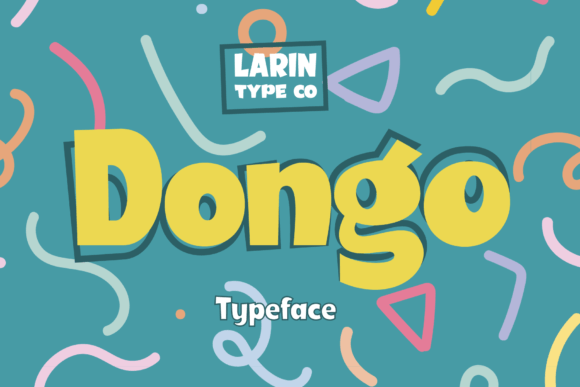
Dive into the world of Dongo, a captivating display font that radiates fun and lightheartedness! Embark on a journey of creativity where imagination knows no bounds. Dongo's bold, rounded letterforms and whimsical curves dance across the page, creating a visual symphony that captures the hearts of all who behold it. Unleash your inner child and let the playful charm of Dongo infuse your designs with a sense of joy and wonder.
Step into a realm of boundless creativity with Dongo. Whether you're crafting cheerful children's books, designing vibrant branding materials, or seeking a playful touch for your latest project, Dongo rises to the occasion. Its distinctive style captivates the attention, igniting the imagination and leaving a lasting impression on your audience.
With Dongo, your designs take on a new life, brimming with energy and personality. Its playful curves and quirky personality add a touch of whimsy that sets your creations apart. Transform ordinary words into extraordinary statements, where each letter dances with delight, bringing a smile to the faces of your readers.
Dongo isn't just a font; it's an invitation to unleash your creativity, to embrace the joy of self-expression, and to share your unique vision with the world. Whether you're a seasoned designer seeking to captivate your audience or a budding artist exploring the world of typography, Dongo is your perfect companion.
So, embrace the magic of Dongo and let your imagination soar! Discover the endless possibilities that await you as you embark on a creative journey with this captivating display font. Let Dongo ignite your passion for design and create masterpieces that leave your audience spellbound.